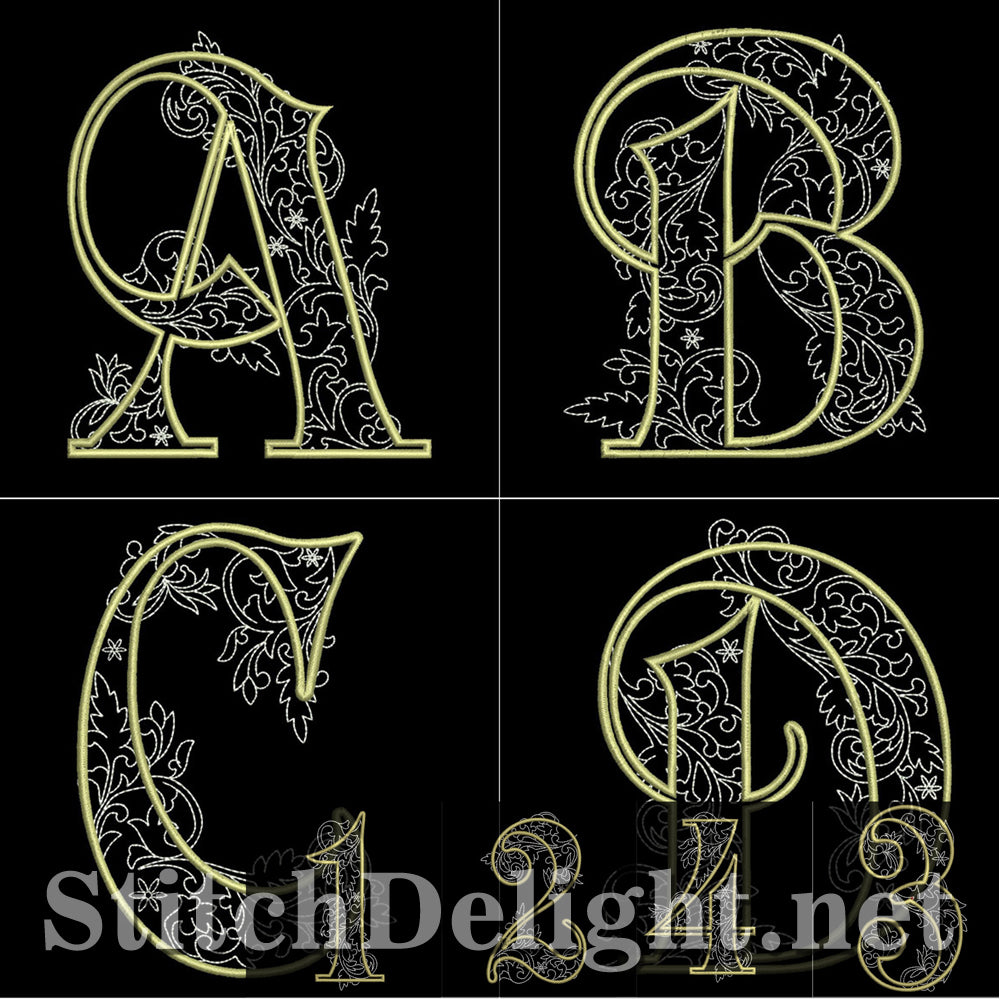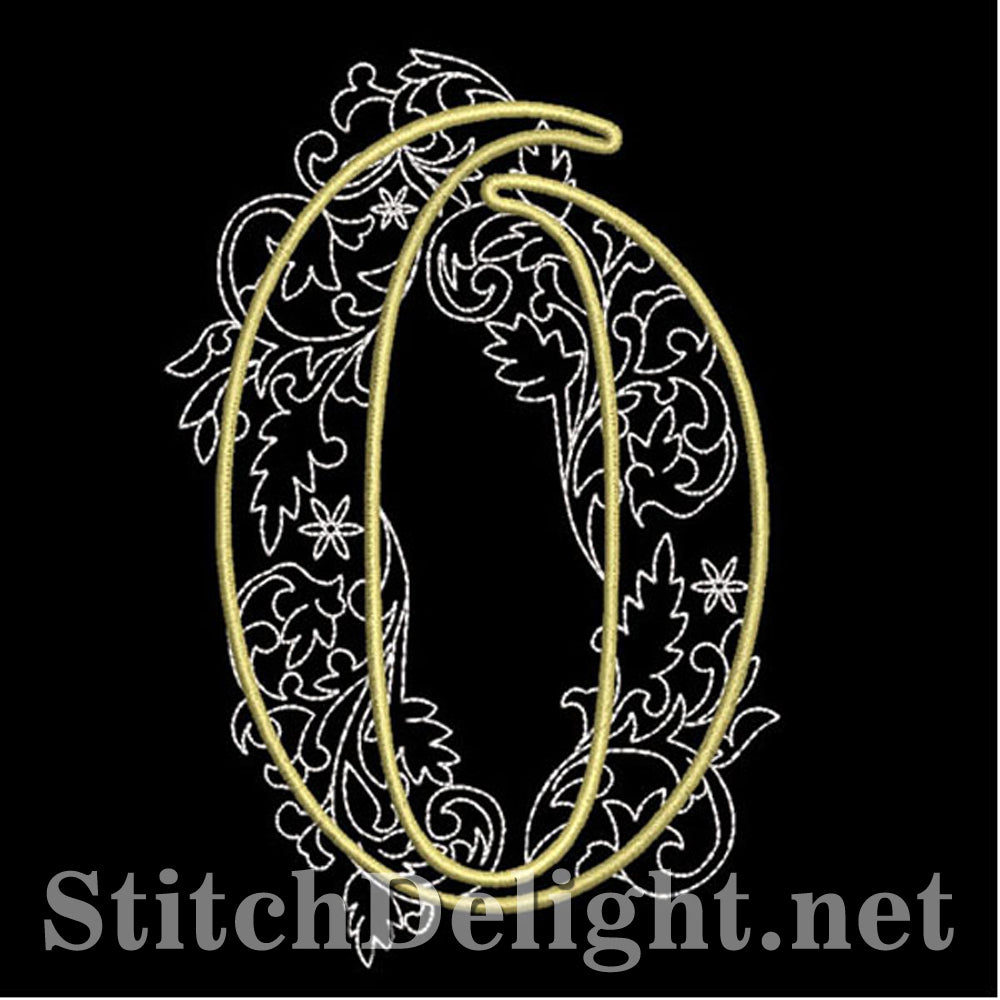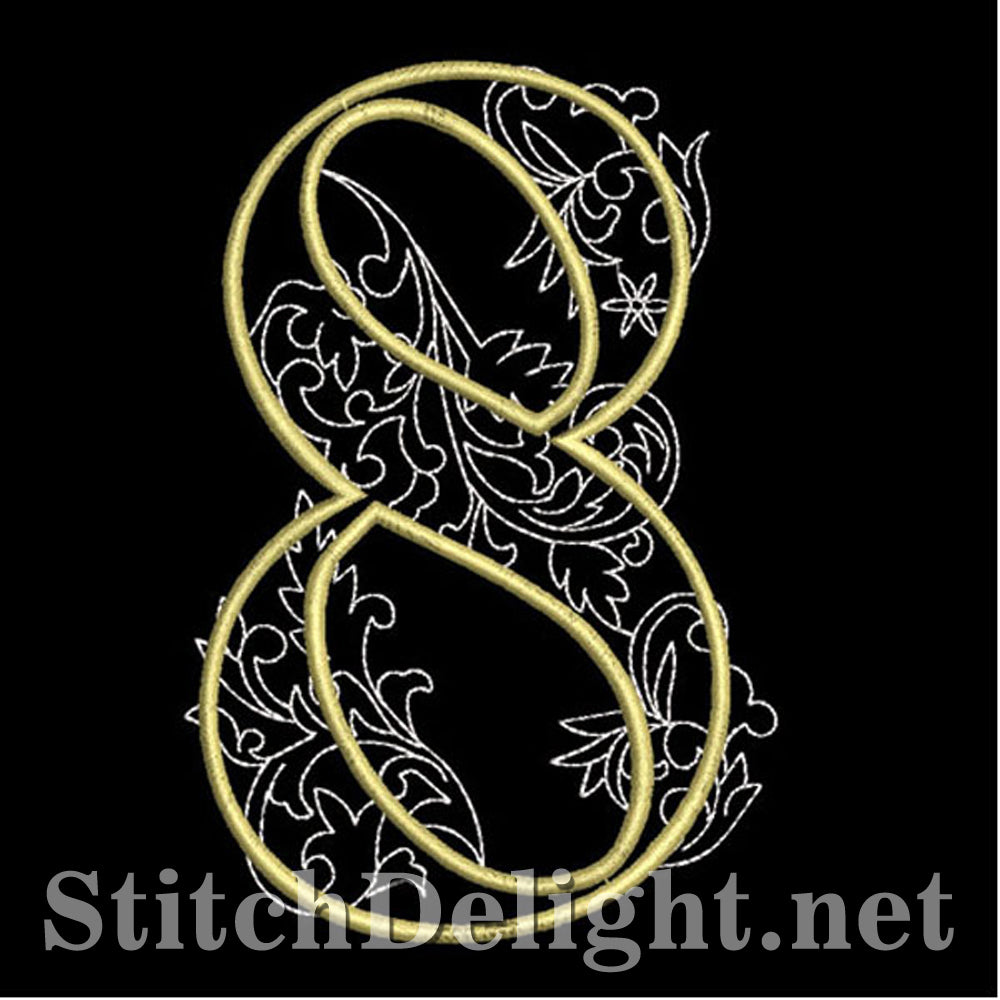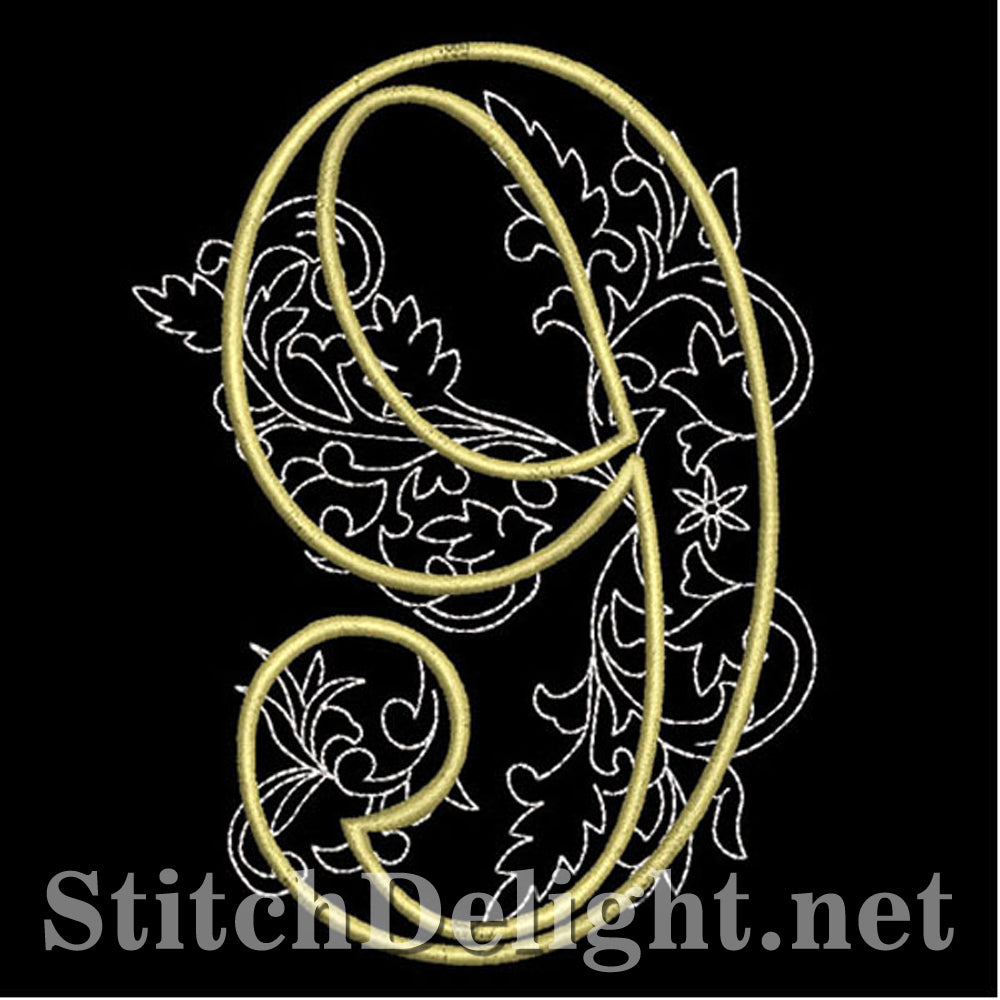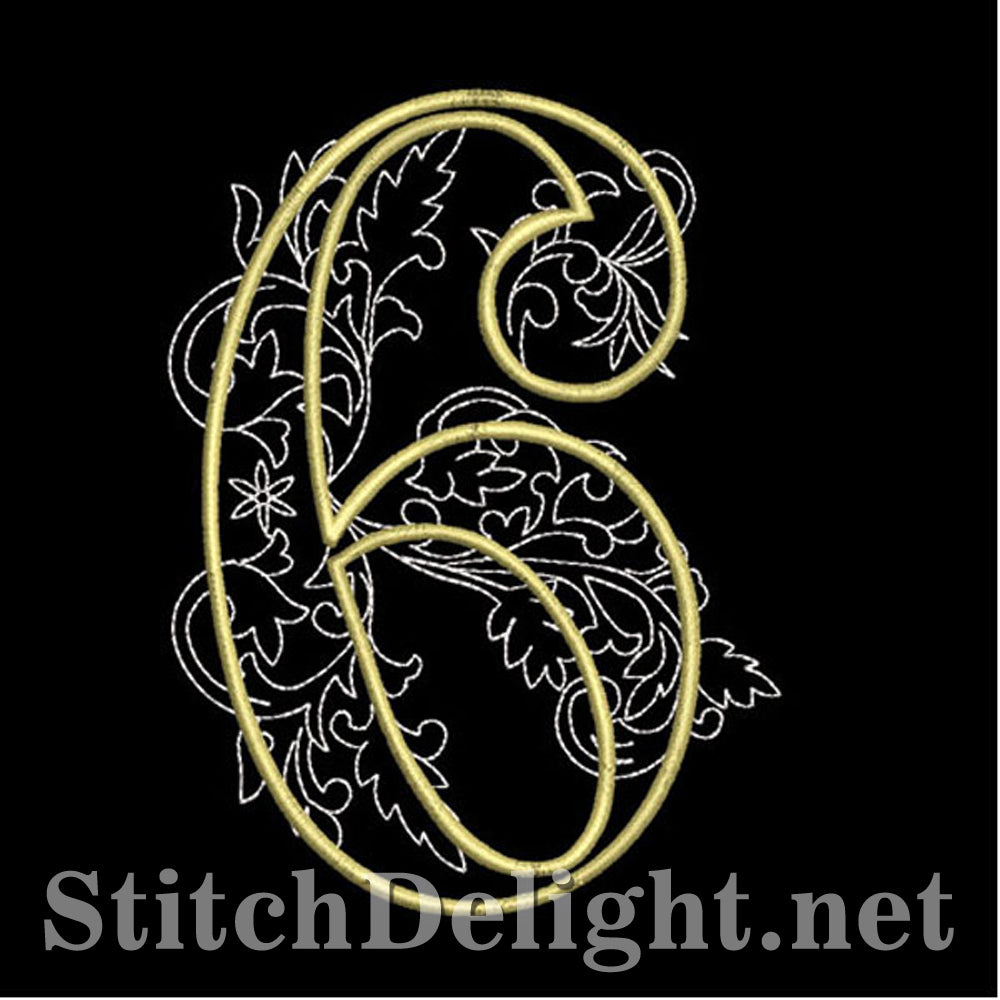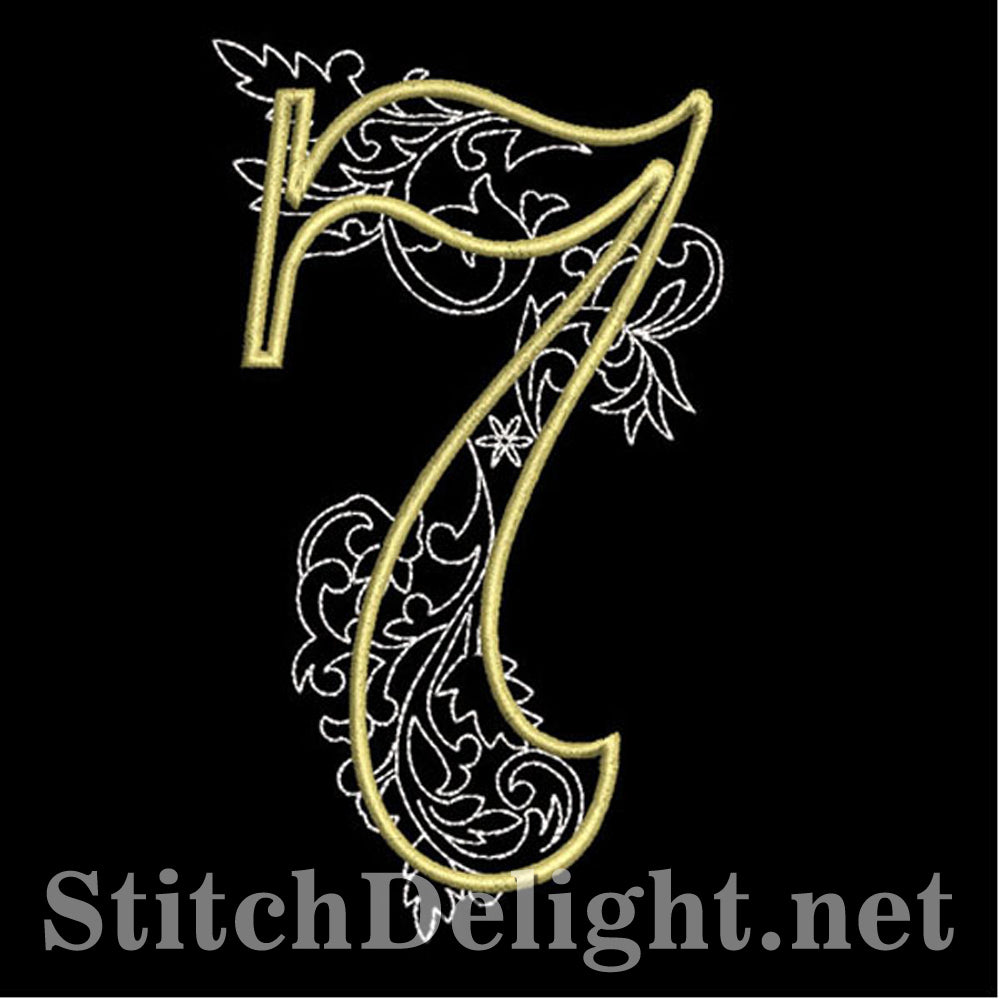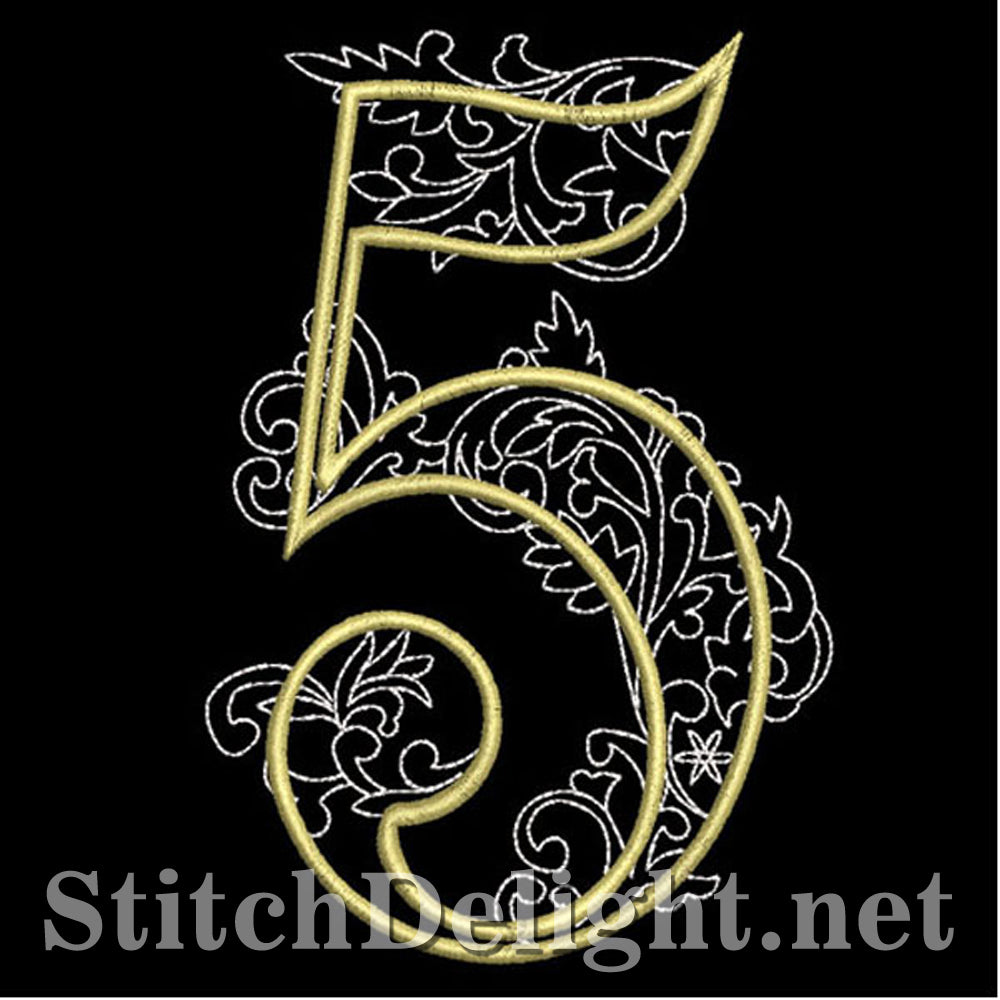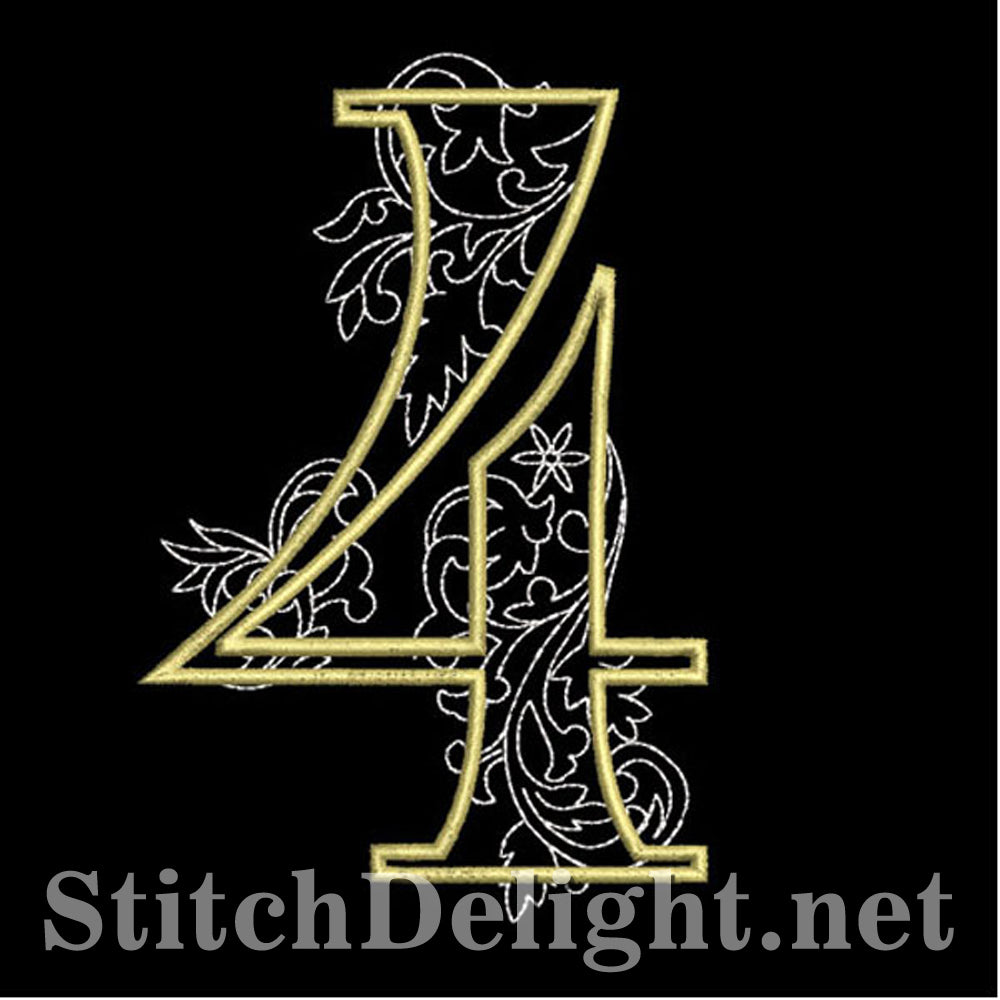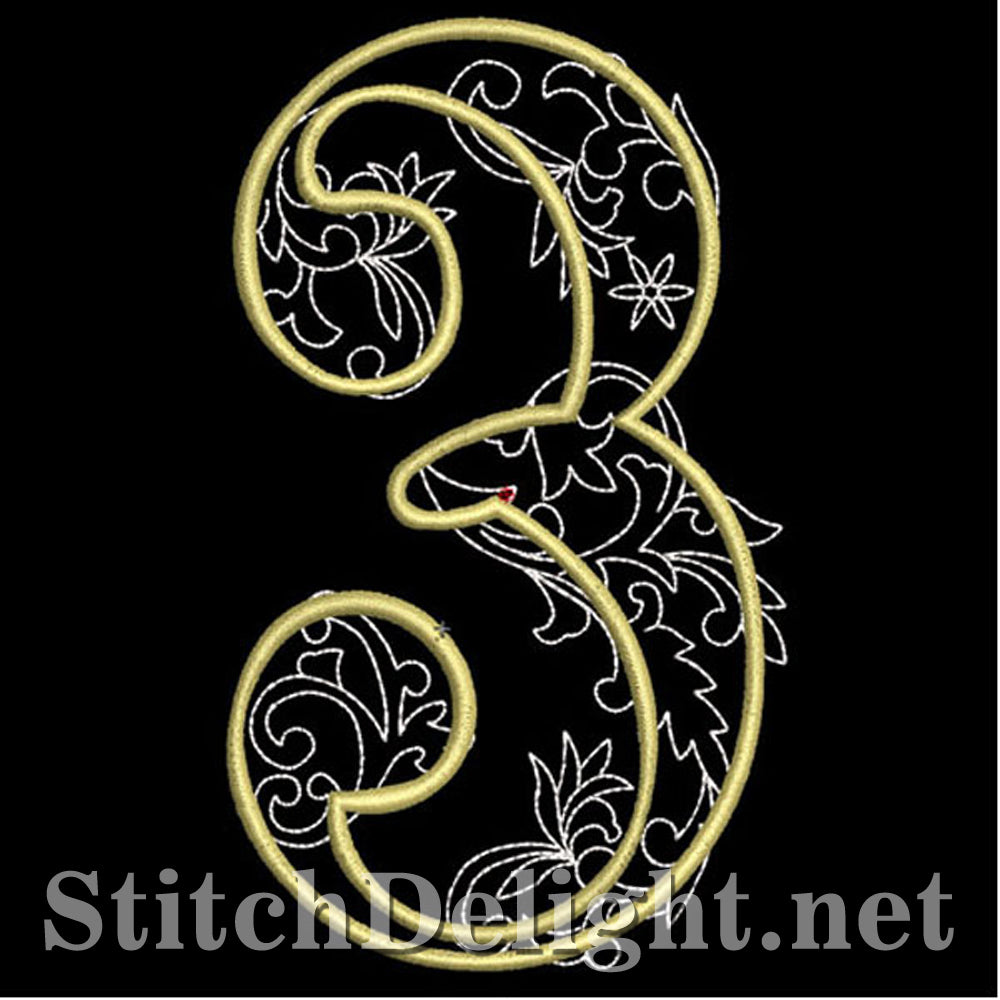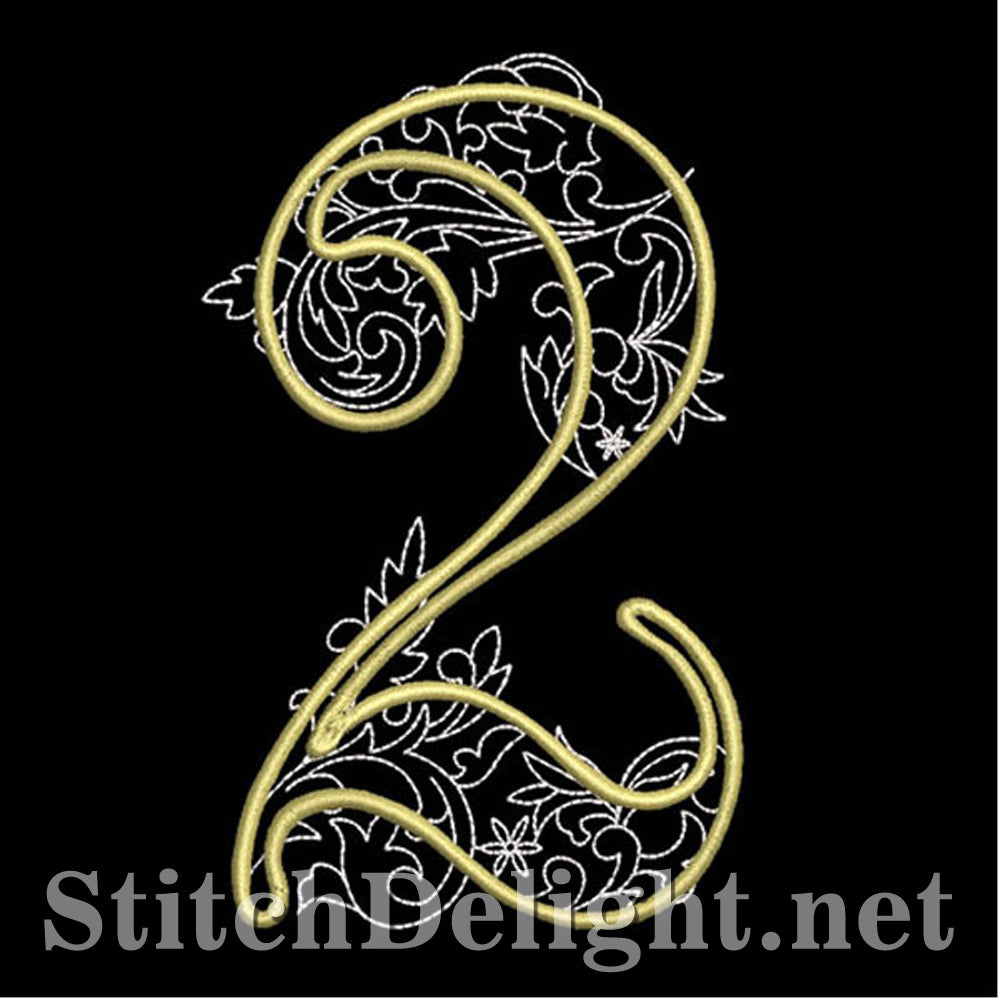
Beautiful detailed quilters font in 4x4 and 5x7 hoop incl - 4x4 - 3.75" high and 5x7 - 5.67" high - NOW includes the BX format for Embrilliance Essentials